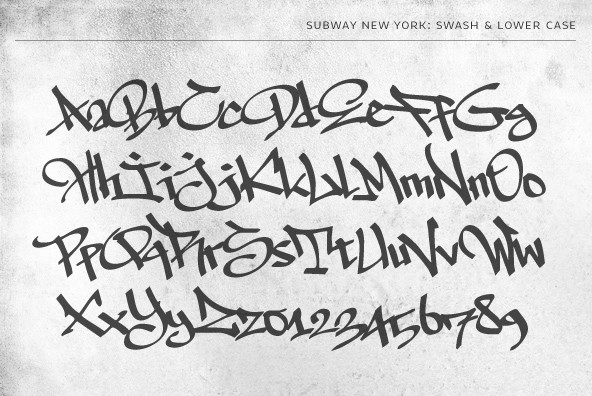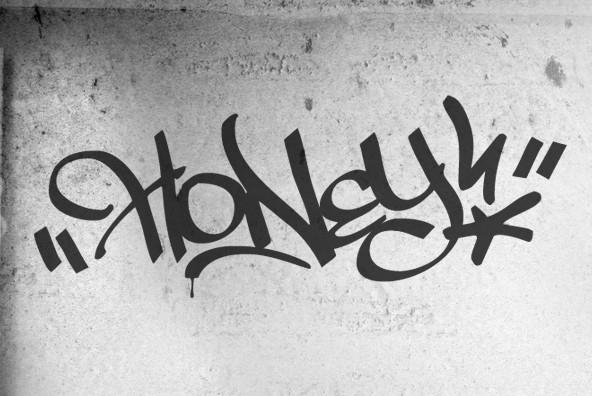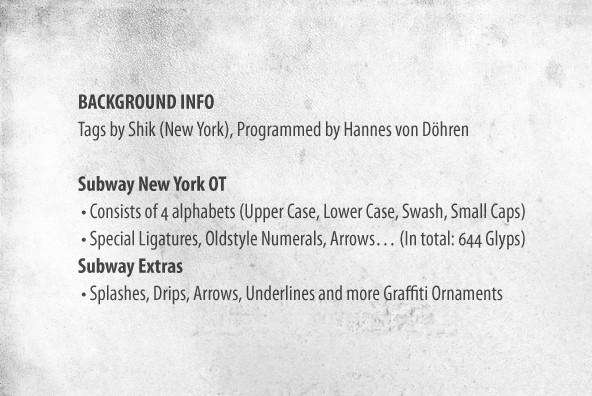
Subway New York
Foundry: HVD Fonts
The Graffiti-artist Shik from New York came to show the typical tag style of his respective metropolitan area. Subway New York consists of 4 alphabets (Uppercase, Lowercase, Small Caps & Swash). They also include ligatures and some specials like underlines and a huge range of accents for a wide language support. With the OpenType technology these features can be applied easily. This package also includes the font Subway Extras, they contain splatters, underlines, drips and more.